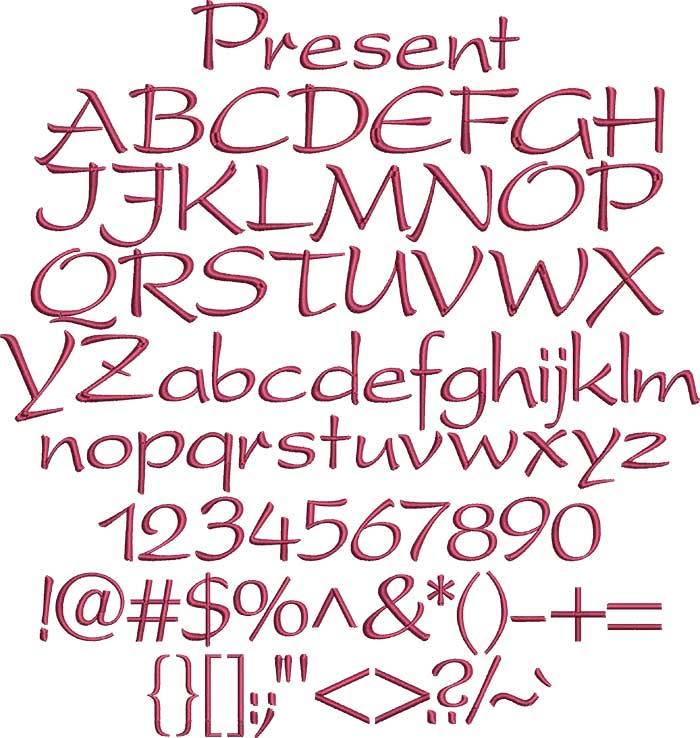
BX Embroidery Font: Present
BX Embroidery Font: Present Font Bundle (4 sizes) is a stylized calligraphic machine embroidery font that includes A-Z, a-z, 0-9 and punctuation; 4 sizes.
BX Embroidery Font: Present is a stylized calligraphic machine embroidery font that includes A-Z, a-z, 0-9 and the following punctuation: ~`!@#$%^&*()-+={}[]|:;”‘<>,.?/ (93 total characters).